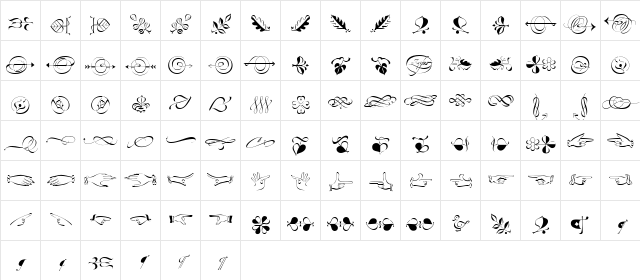
LTZapfino Ornaments Regular
Design Context for LTZapfino Ornaments Typeface
LTZapfino Ornaments is built around its visual character rather than neutral utility — its distinctive forms are designed to make an impression at display sizes.
Font Pairing: Pair with a clean neutral sans-serif for body copy to let LTZapfino Ornaments's character lead without overwhelming the composition.
Pro Tip: Use LTZapfino Ornaments exclusively at display sizes — it was designed to be seen, not read at length. Let a neutral companion handle body copy.